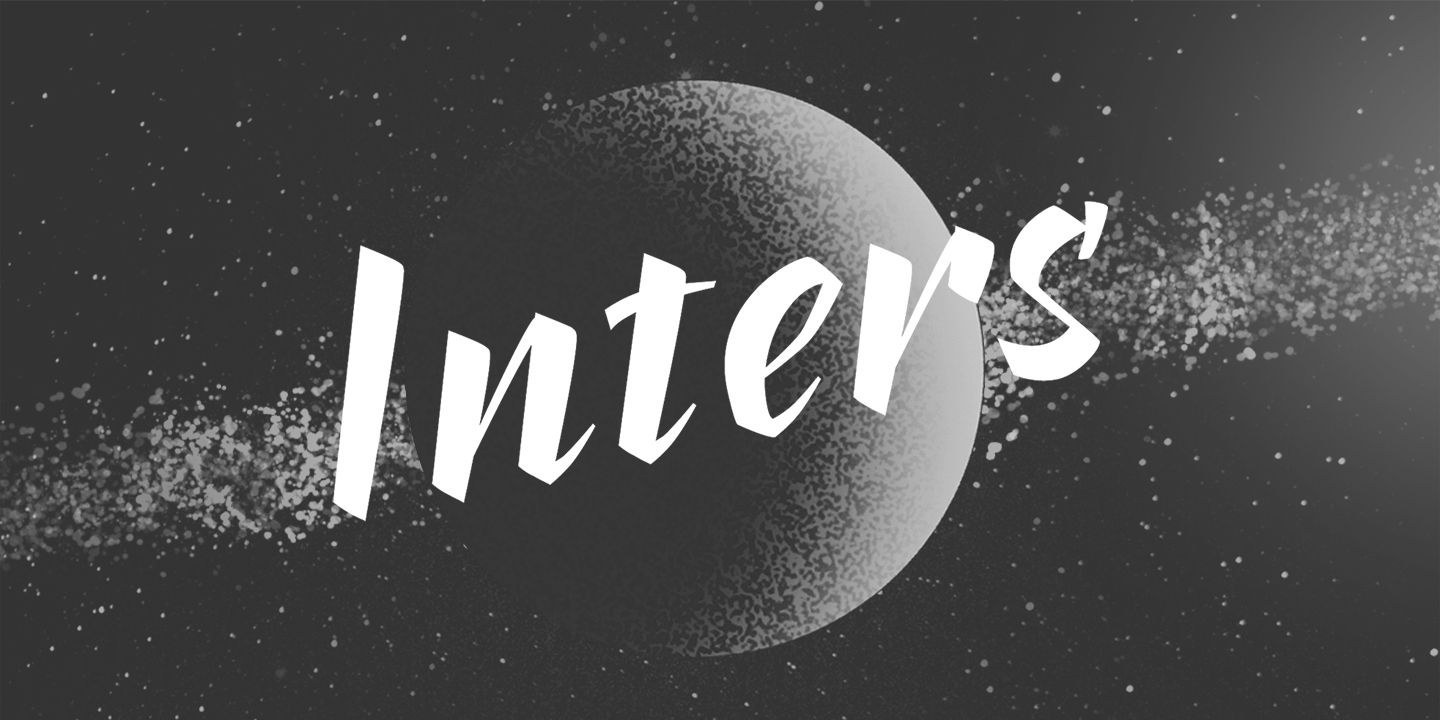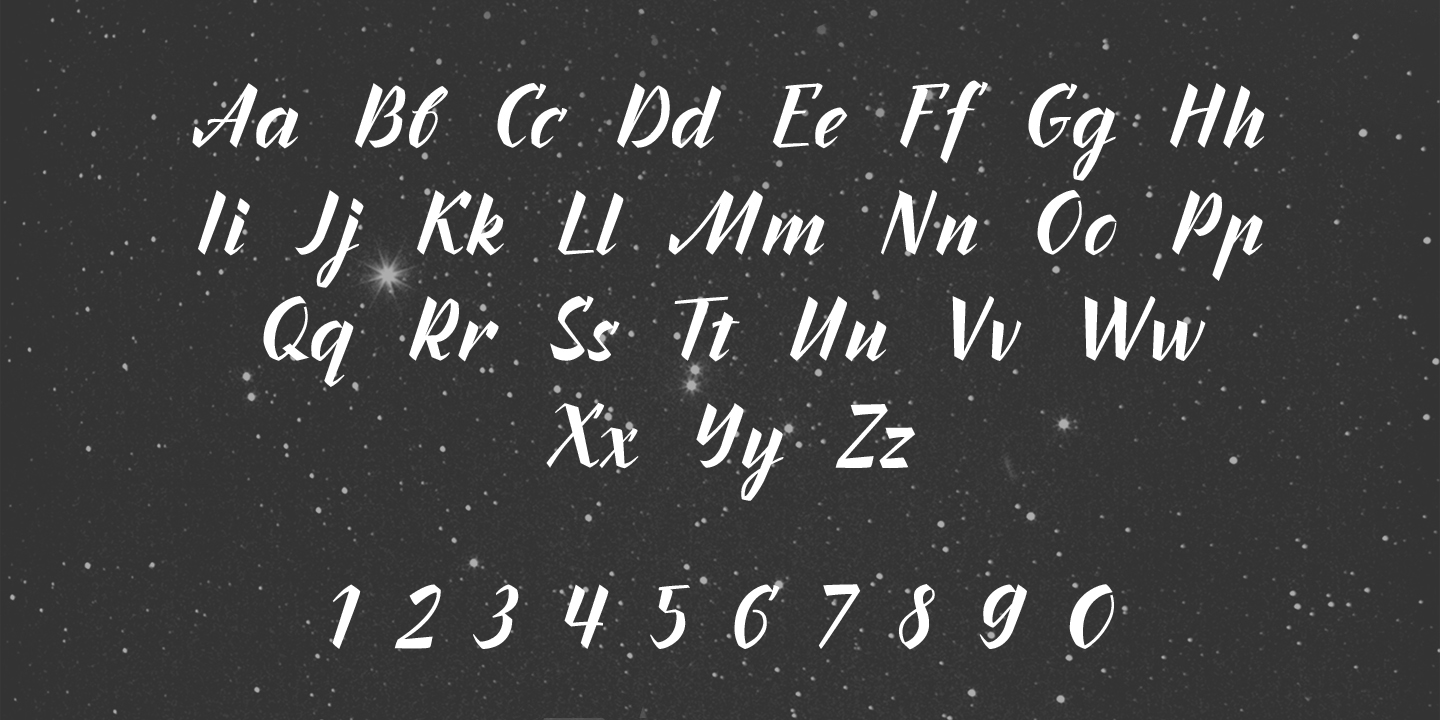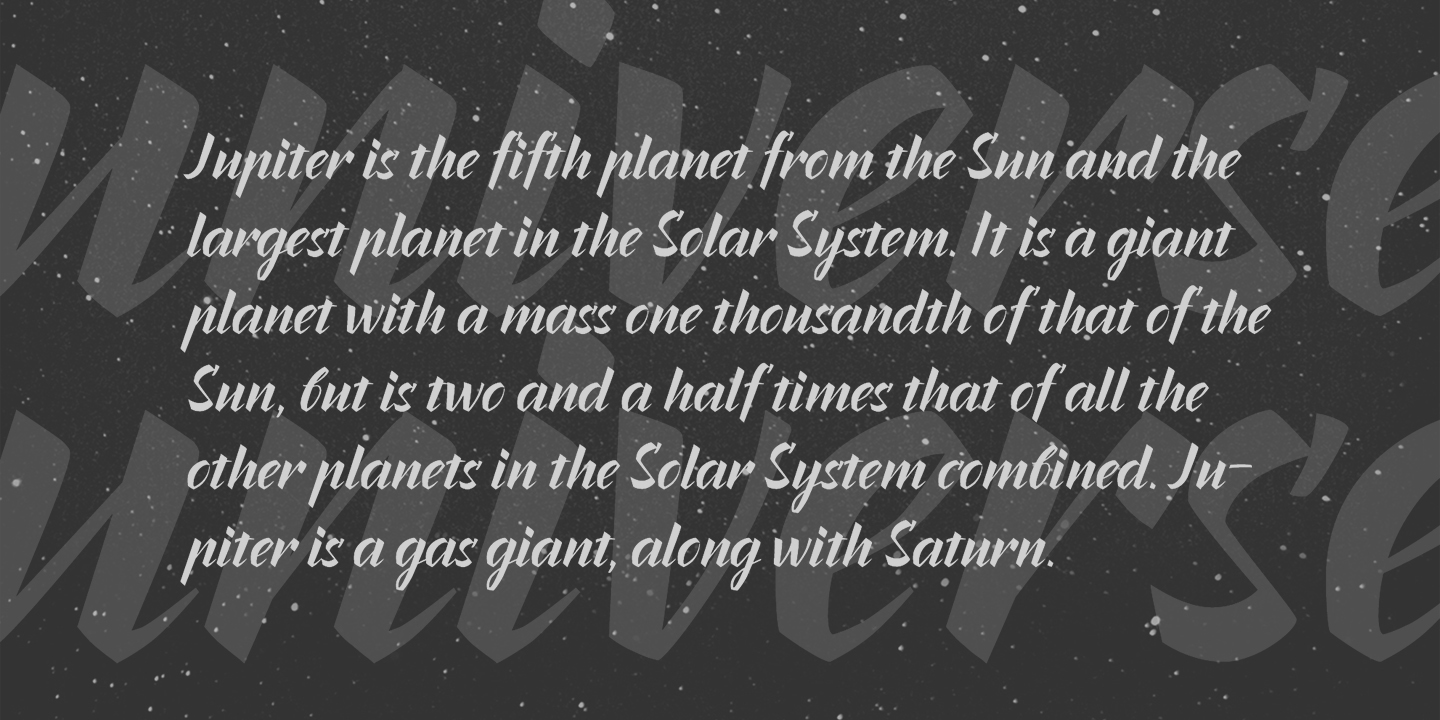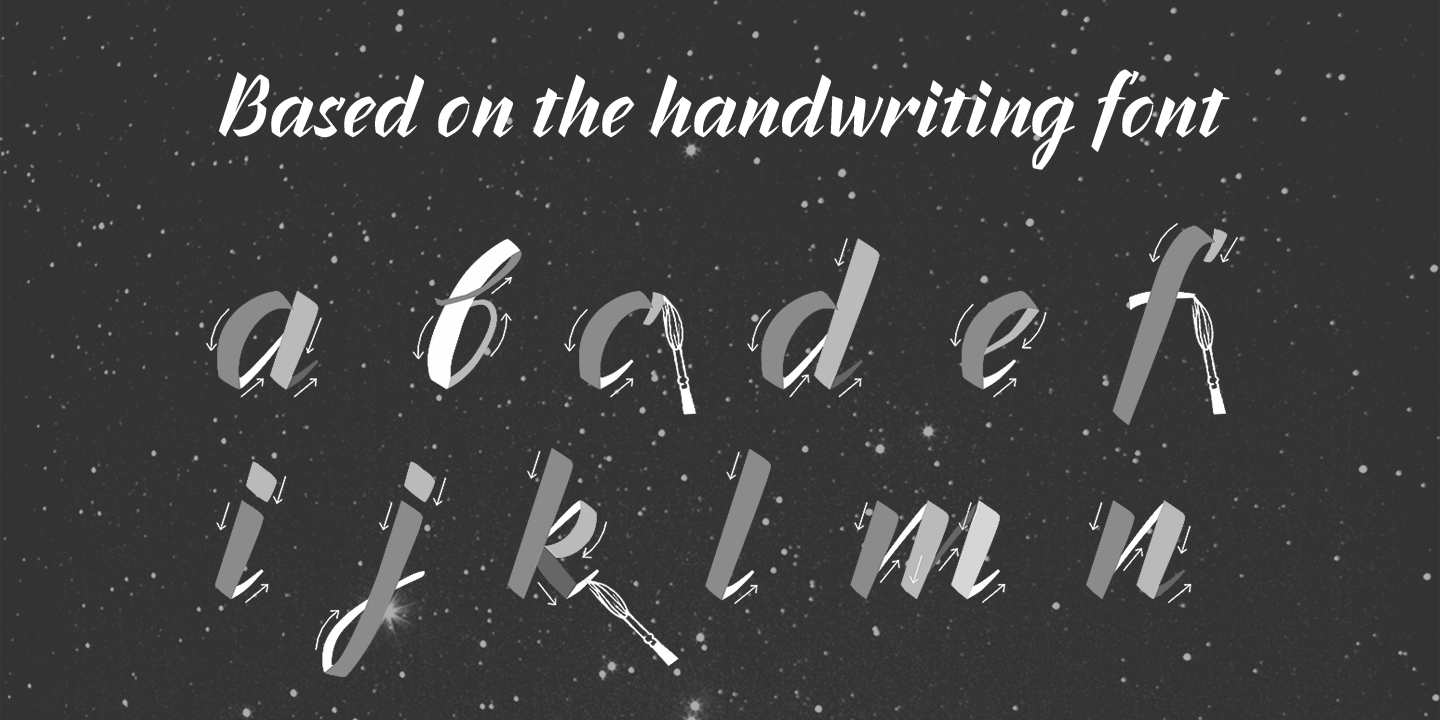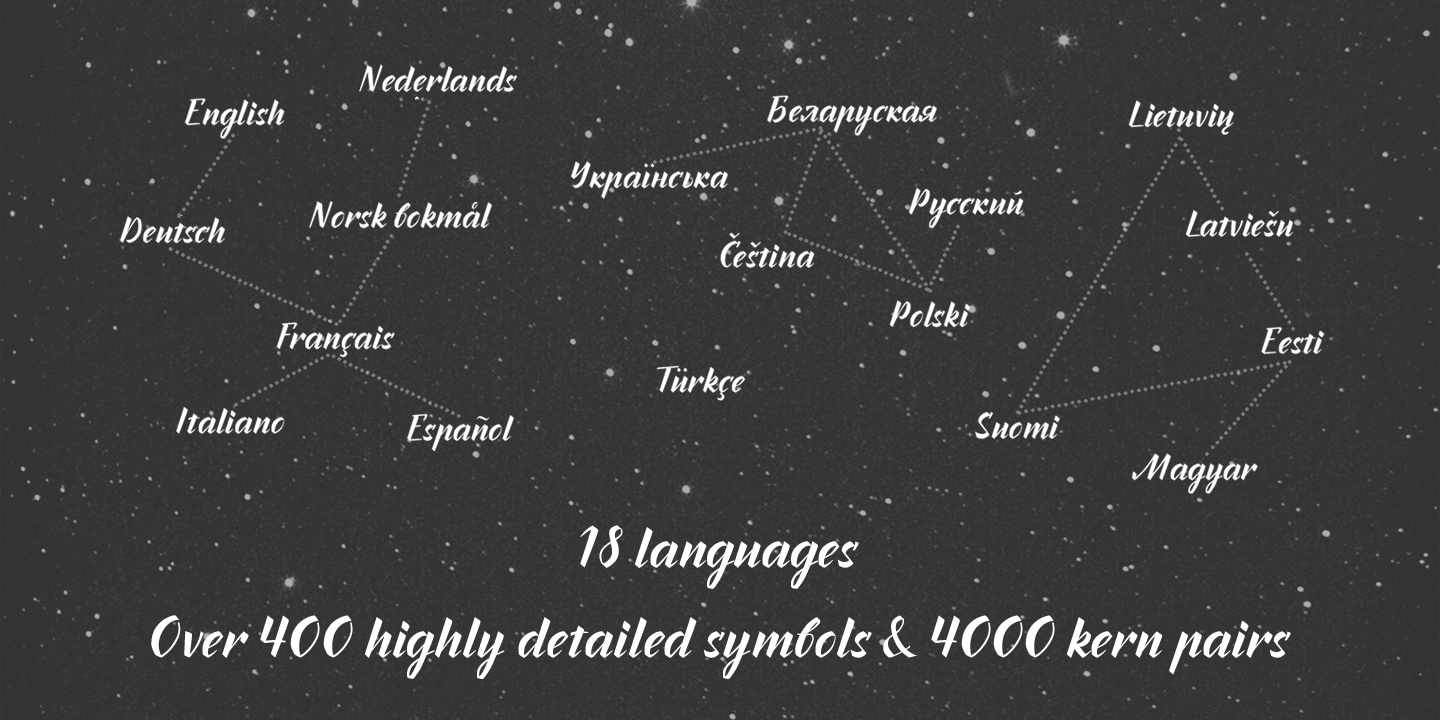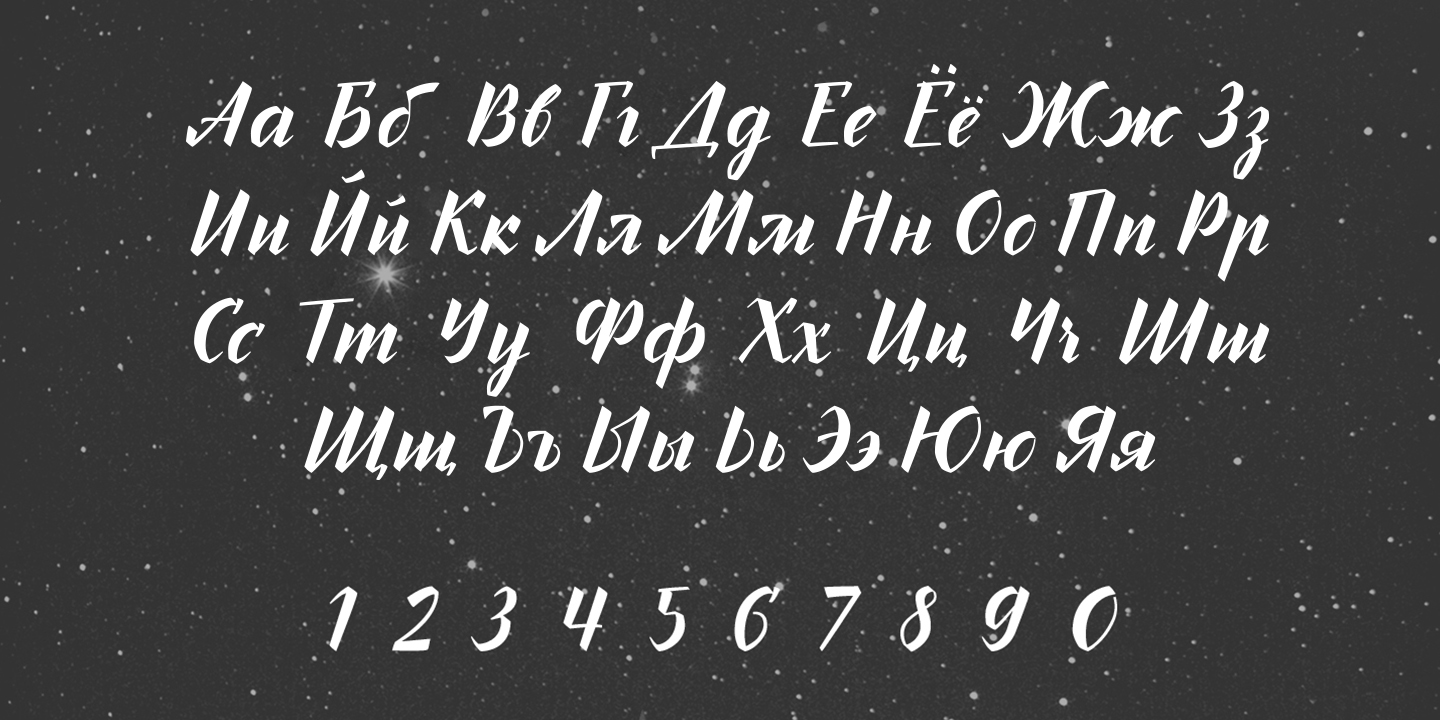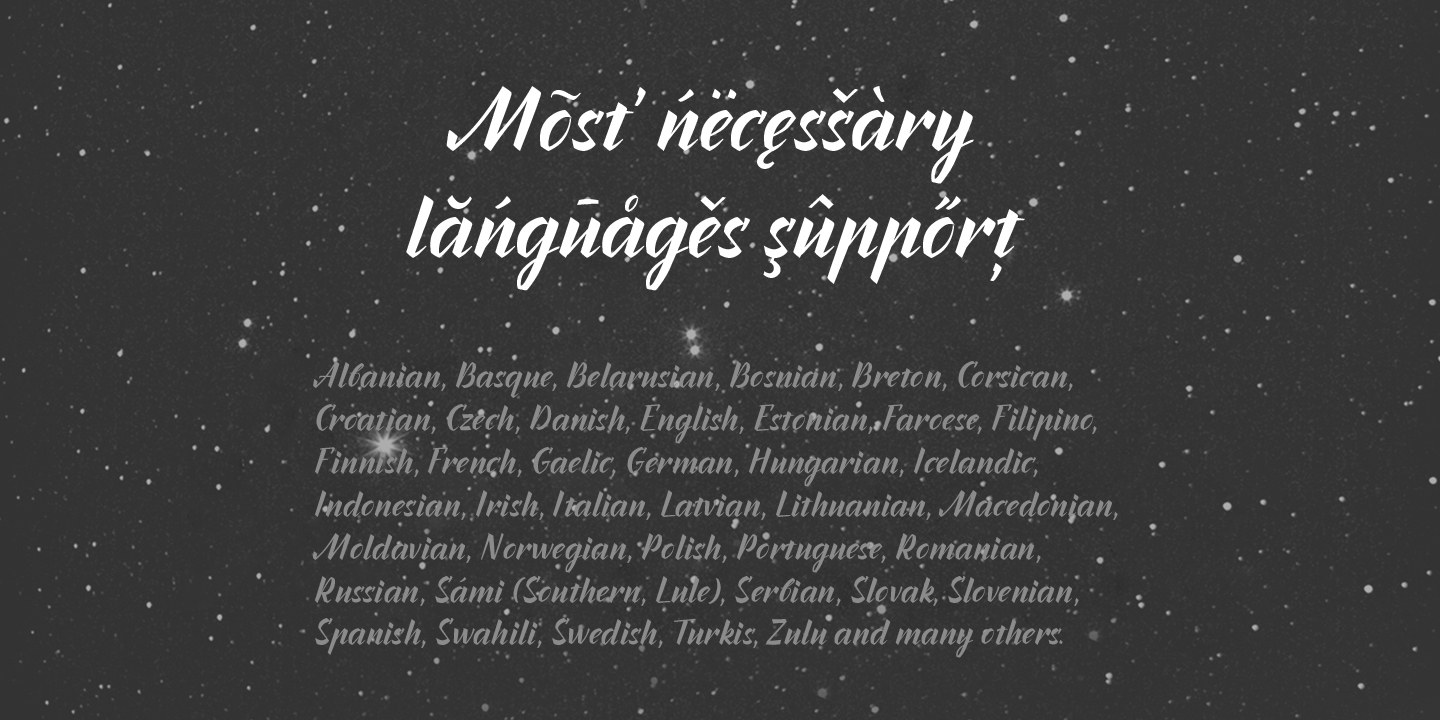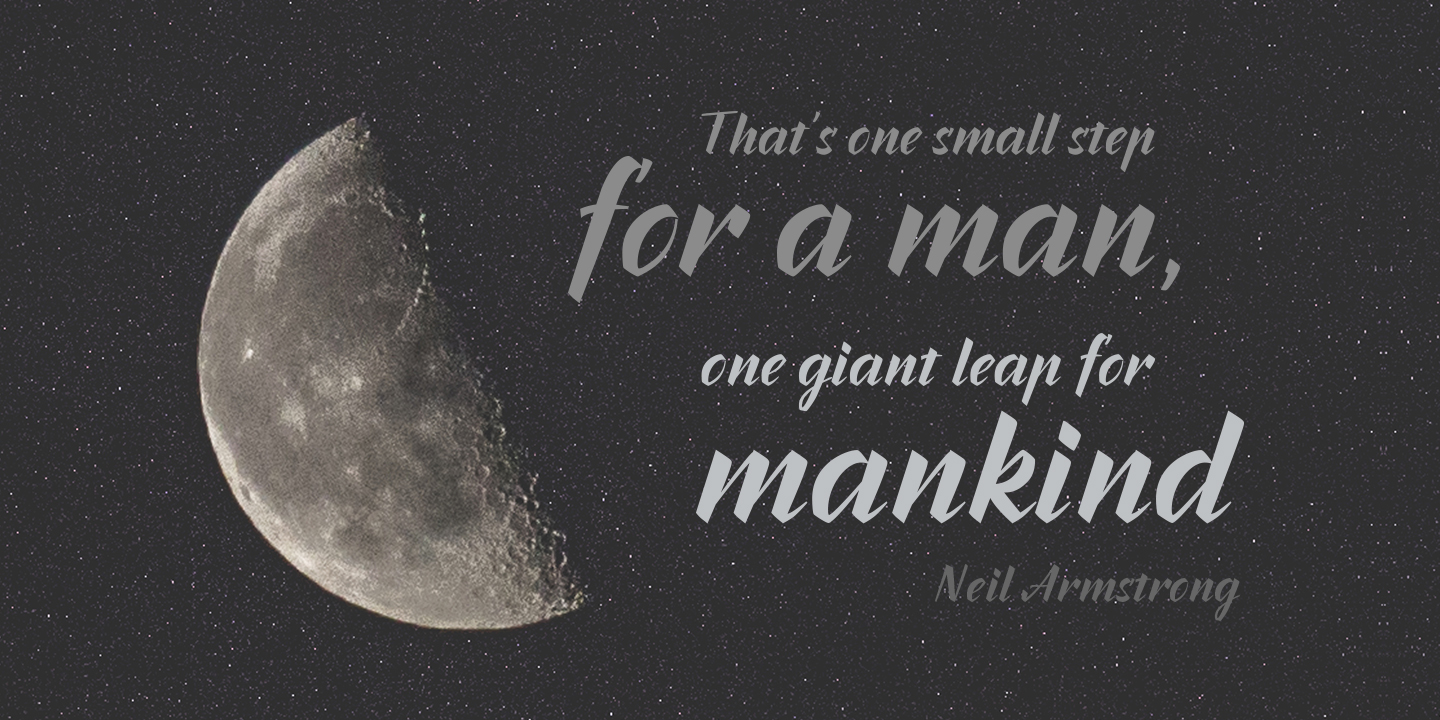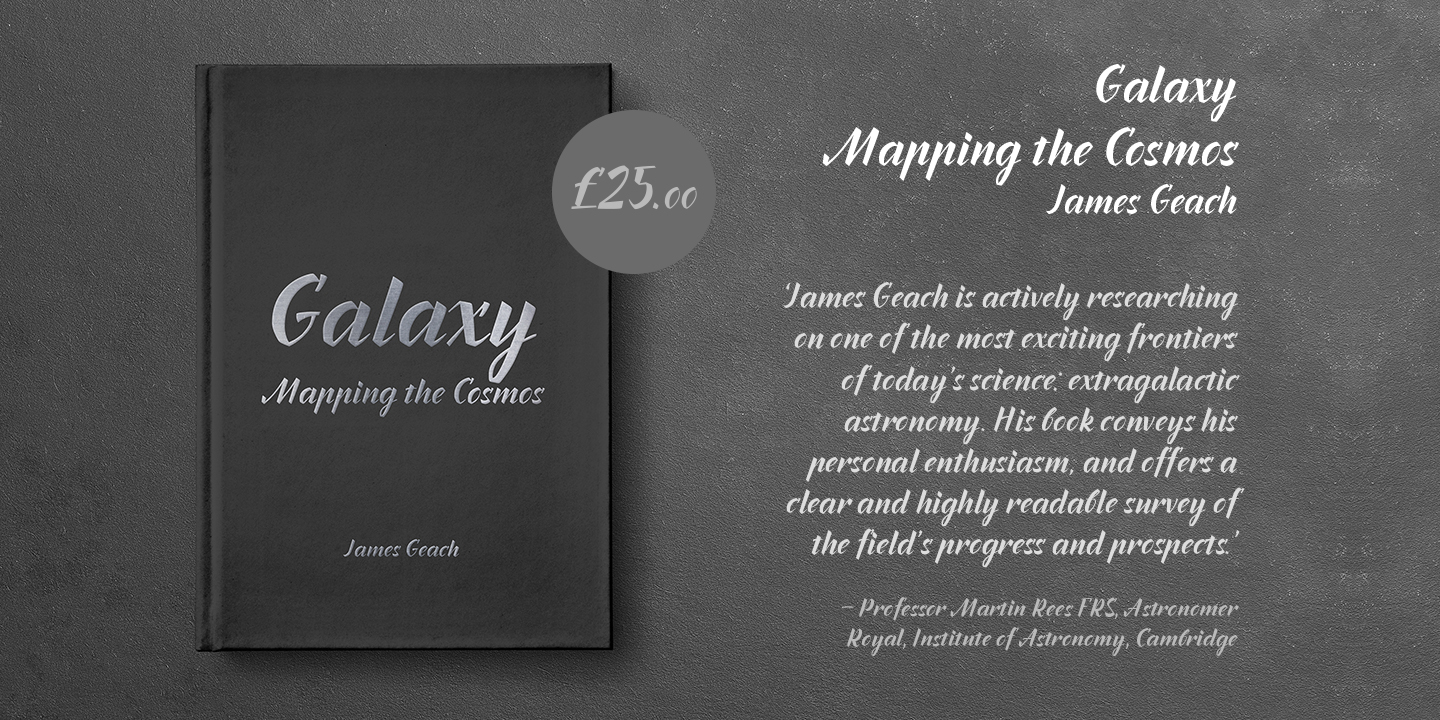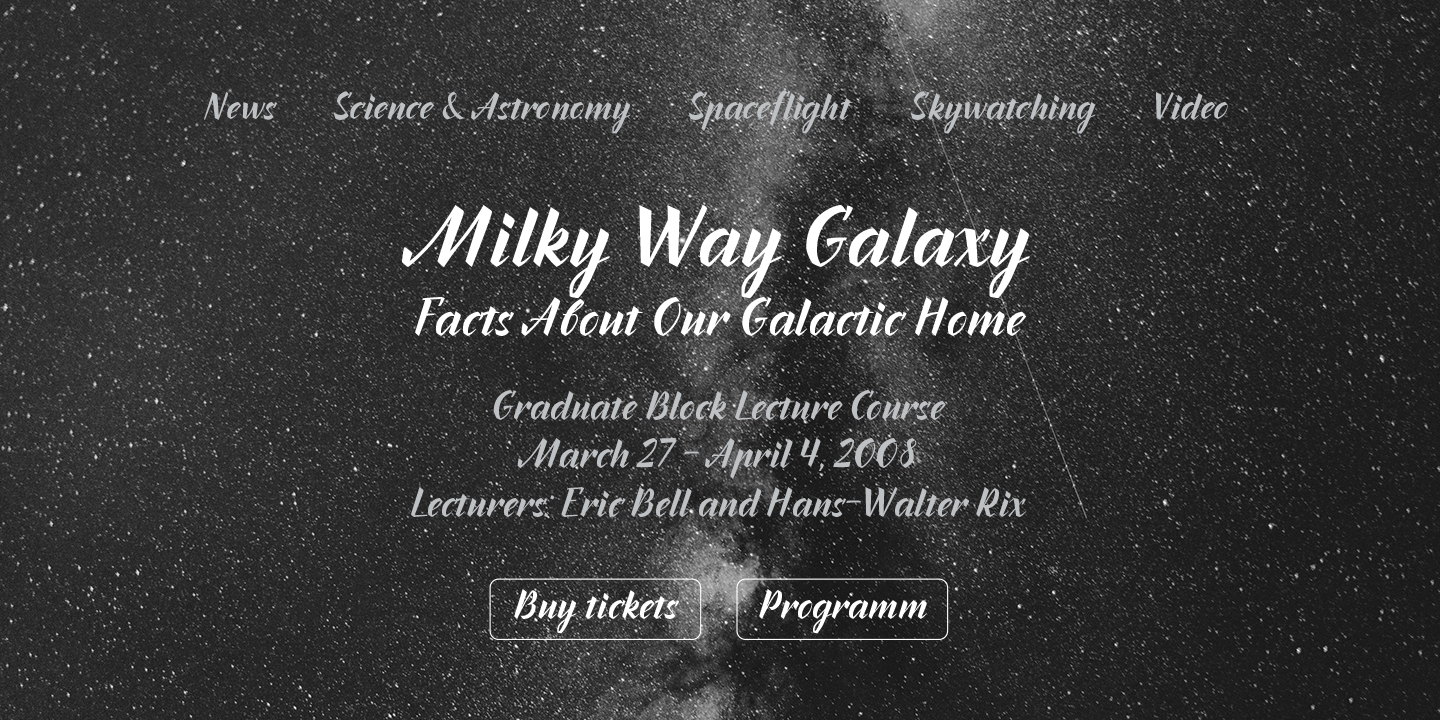
Inters is a very strict and rhythmic font, but at the same time very sensual and emotional. Inters — a real typeface for the dreamers. It is very well suited for each design.
You can use Inters font for a flower shop or a postcards. But it is also perfect for decoration about the future, interiors or kids products.
Scope:
flower shop, movie titles, corporate identity, interiors and events, posters and postcards, web design, printing products, emotional design, handmade design